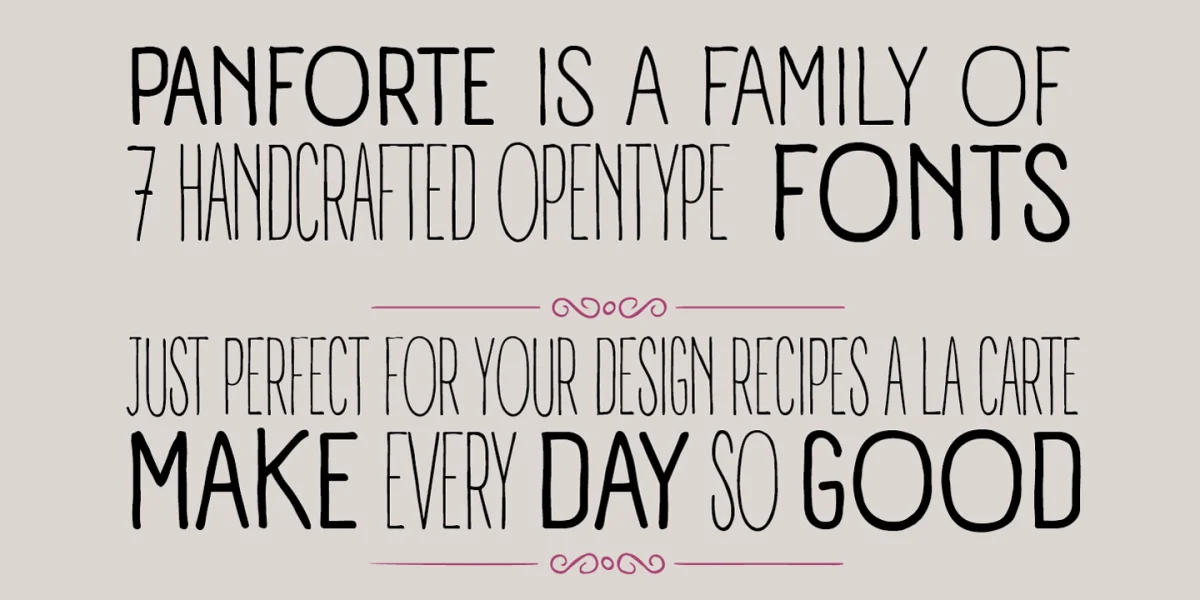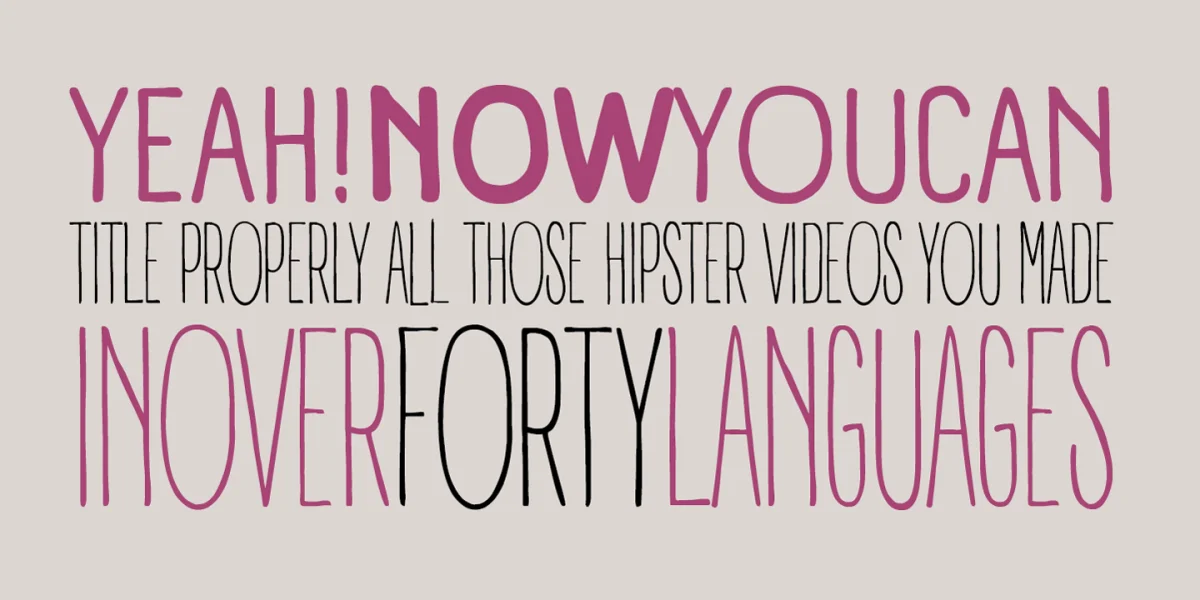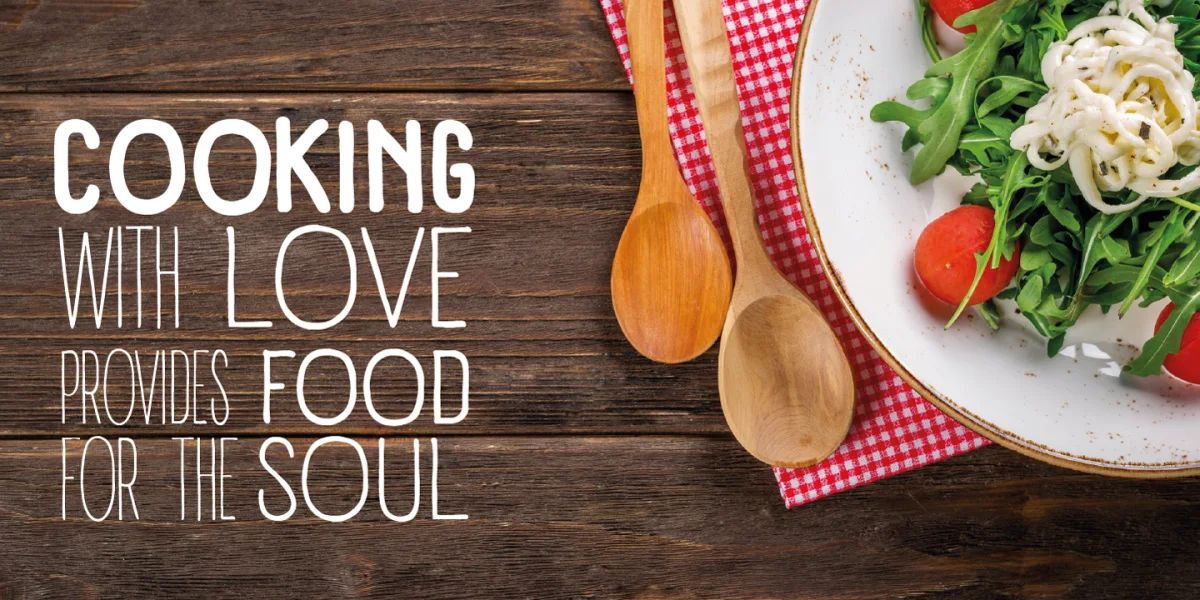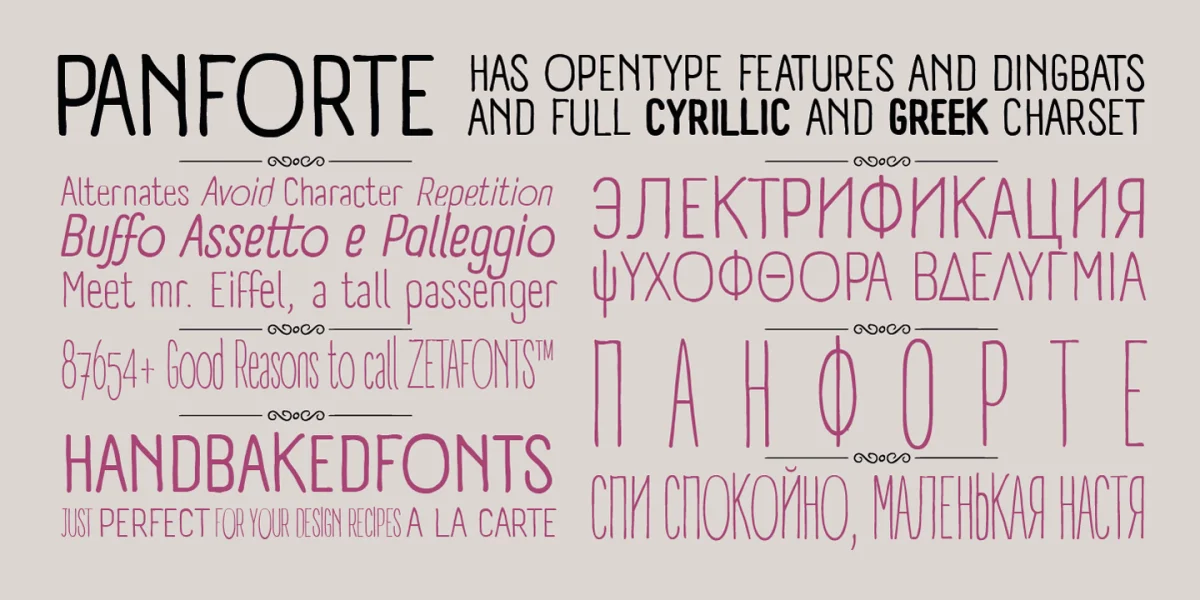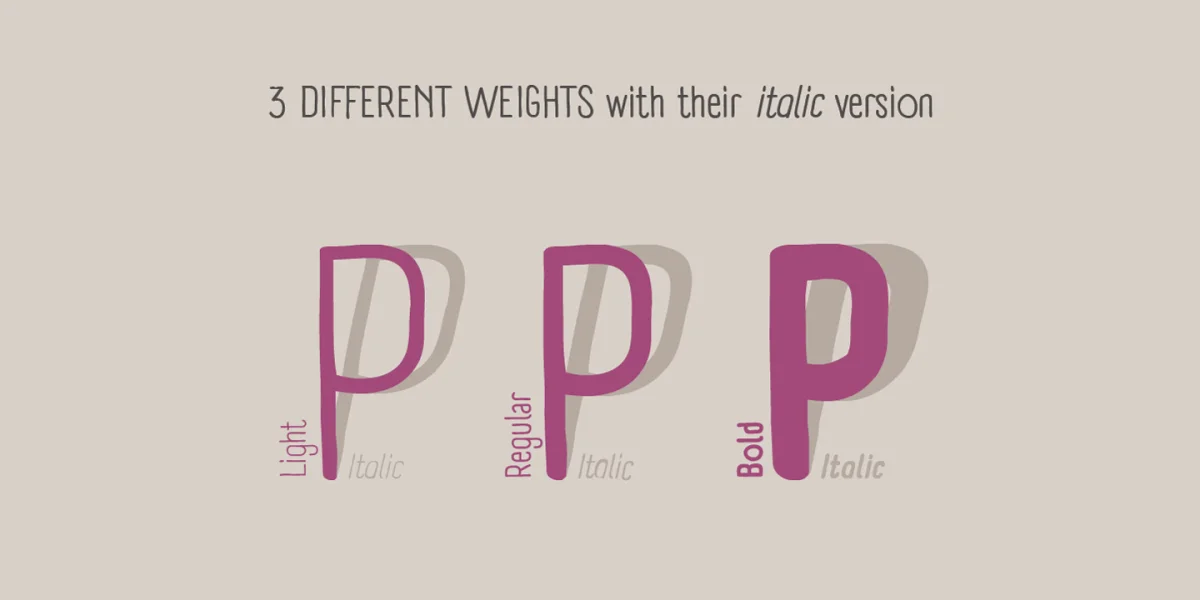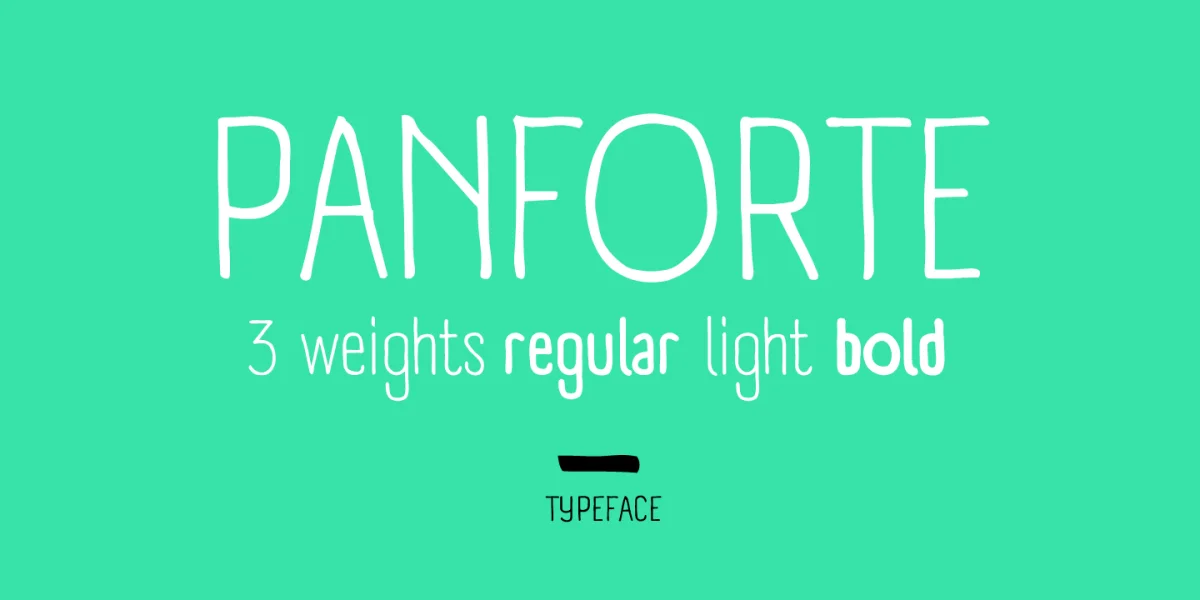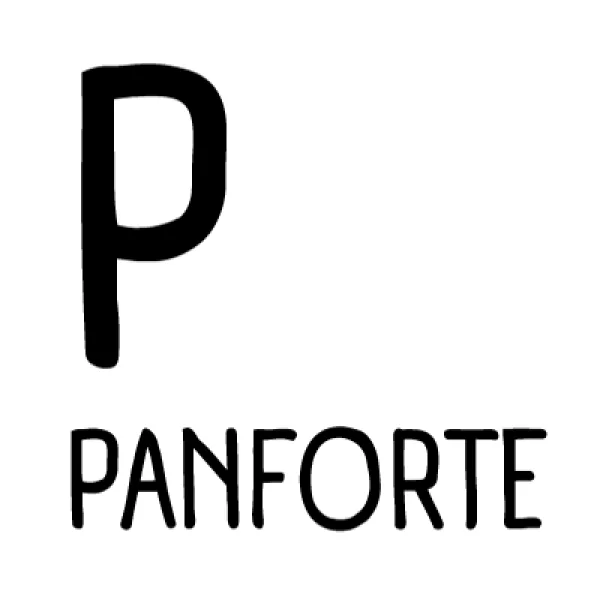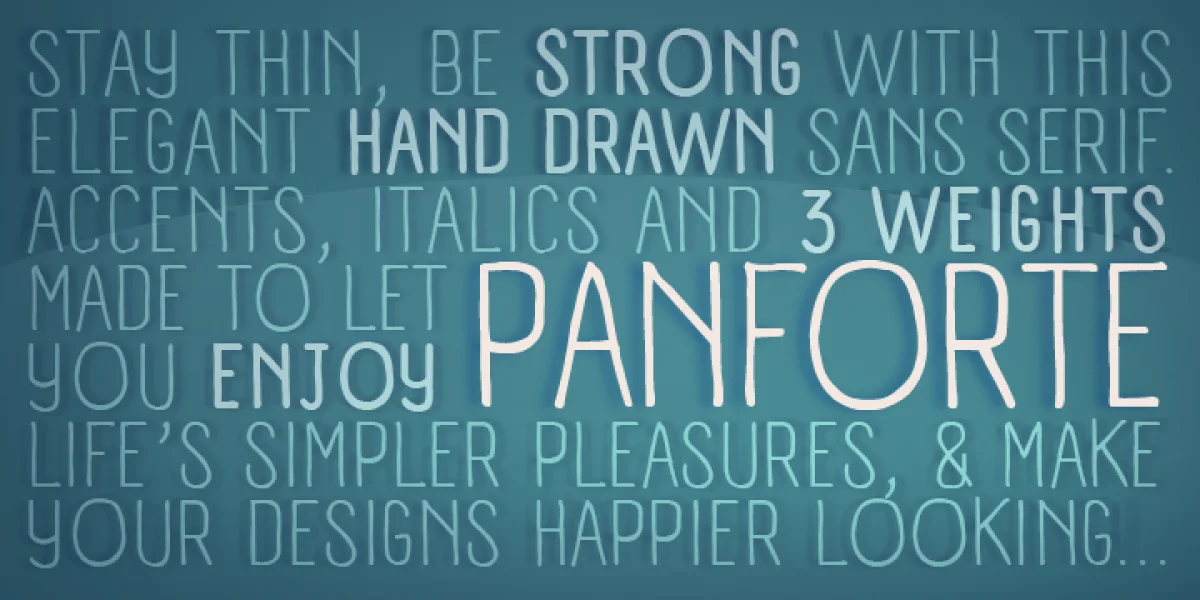
Panforte Pro is the basic ingredient for any tasty visual feast: a prime-cut font family, deliciously readable online and offline, space-saving and organic, appealing to hipster consumers and seasoned gluttons.
Hand drawn in easy big strokes, its a very condensed typeface that allows you to typeset easily long texts.Lovers of world cuisine will be delighted to discover that it supports over forty languages using the latin alphabet, spiced with hand-picked diacritics and comes also with a tasty side dish of greek and cyrillic characters.
For all the nouvelle cuisine open type chefs, it features a set of proper small case character set and alternate oldstyle numerals, as well as a set of repeating letter ligatures to avoid that metallic taste of repeating double characters.